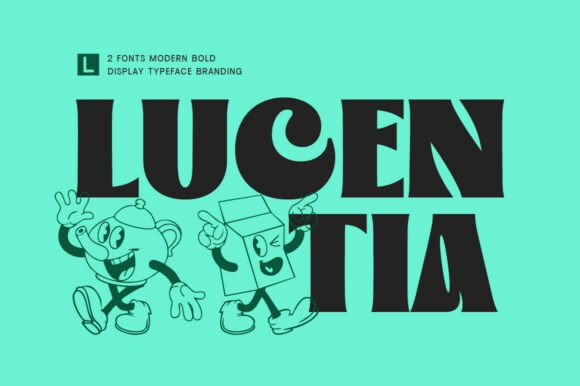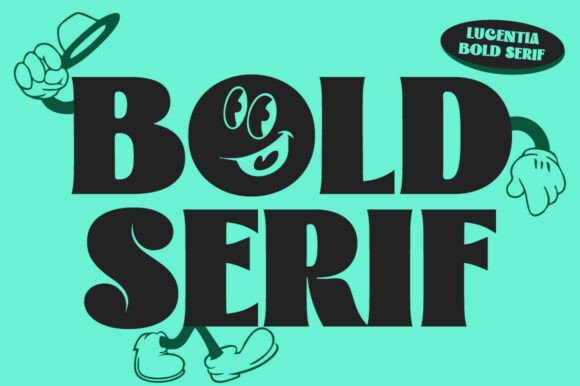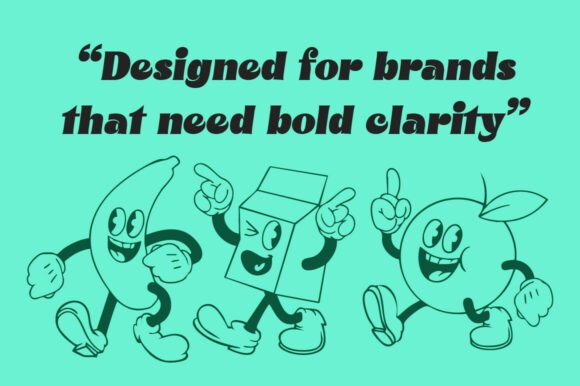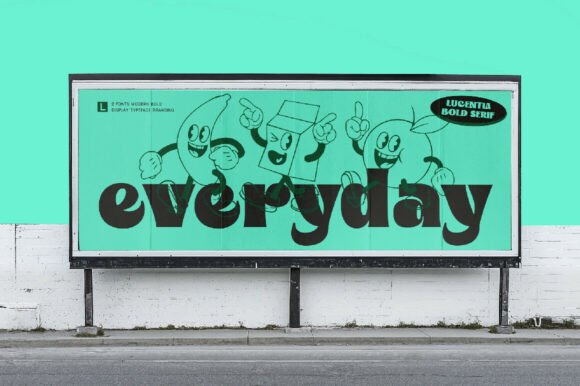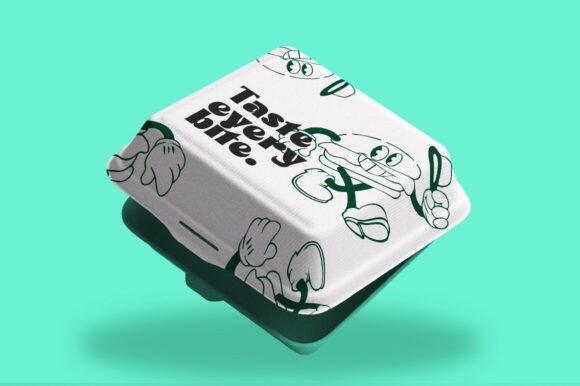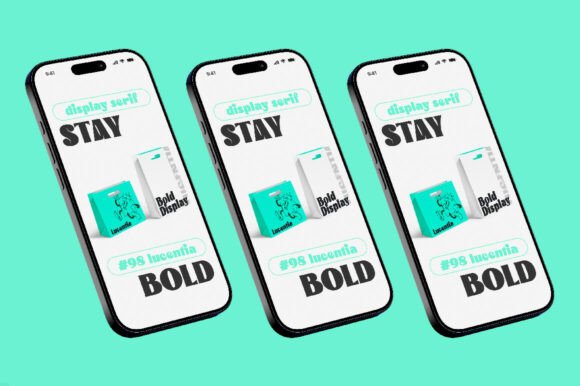
Introduction to Lucentia Font
As a designer, there’s no feeling quite like the rush of inspiration that comes with discovering a new, game-changing design resource. It’s the spark that ignites a creative project, fueling your imagination and propelling you towards something truly remarkable. For many of us, this moment often begins with the perfect font – one that exudes confidence, clarity, and a dash of personality. Enter the Lucentia Font, a modern, bold display typeface designed to deliver a strong visual presence with refined clarity.
Whether you’re crafting a logo, designing a high-impact editorial layout, or developing a modern marketing campaign, the Lucentia Font is an invaluable asset for designers. Its clean geometry, bold proportions, and transparent background make it the perfect choice for creating a professional character that shines across digital and print applications.
Key Features of Lucentia Font
- Includes a range of glyphs and characters, making it suitable for various languages and creative applications.
- Perfect for designers looking for a unique, high-quality design resource to elevate their creative project.
Honest Review: Lucentia Font
As a designer, I’m always on the lookout for high-quality design resources to enhance my creative projects. The Lucentia Font is one such find that has caught my attention. In this review, I’ll share my honest thoughts on this font.
- ✨ High-quality design: The Lucentia Font boasts beautiful typography and intricate details that make it perfect for creative projects.
- ✨ Versatility: This font can be used for various purposes, from headings to body text, making it a great addition to any design arsenal.
- ⚠️ Limited customization options: While the font looks great, there are limited options to customize it to suit specific design needs.
- ⚠️ Not suitable for transparent background: Due to its intricate design, the font may not be ideal for use on transparent backgrounds, as the details may get lost.
Overall, I’m impressed with the Lucentia Font’s high-quality design and versatility. However, its limitations, such as limited customization options and incompatibility with transparent backgrounds, need to be considered before incorporating it into your design project.
The Lucentia Font is a high-quality, versatile design resource perfect for creative projects. Its unique style and transparent background make it an ideal choice for designers and artists.
Tips for Getting the Most Out of Lucentia Font
To get the most out of the Lucentia Font, experiment with different font sizes, colors, and styles to create a unique and eye-catching design.
Combine the Lucentia Font with other design elements, such as graphics and images, to create a visually appealing and cohesive design.
The Lucentia Font is commonly used in creative projects, such as logos, brochures, and business cards. Its transparent background makes it an ideal choice for overlaying text and graphics.
The Lucentia Font is also a popular choice for designers who want a high-quality, unique font for their creative projects.
Comparison to Lucentia Font: Alegreya Sans has a more modern and sleek appearance compared to Lucentia Font’s classic and elegant look. While Lucentia Font is ideal for traditional and vintage designs, Alegreya Sans is better suited for contemporary and cutting-edge projects.
Can I use Lucentia Font with a transparent background?
Yes, Lucentia Font supports transparent backgrounds, making it perfect for creative projects that require a subtle and elegant look. Simply use a design application that supports transparent backgrounds, such as Adobe Illustrator or Photoshop, and you’re good to go!